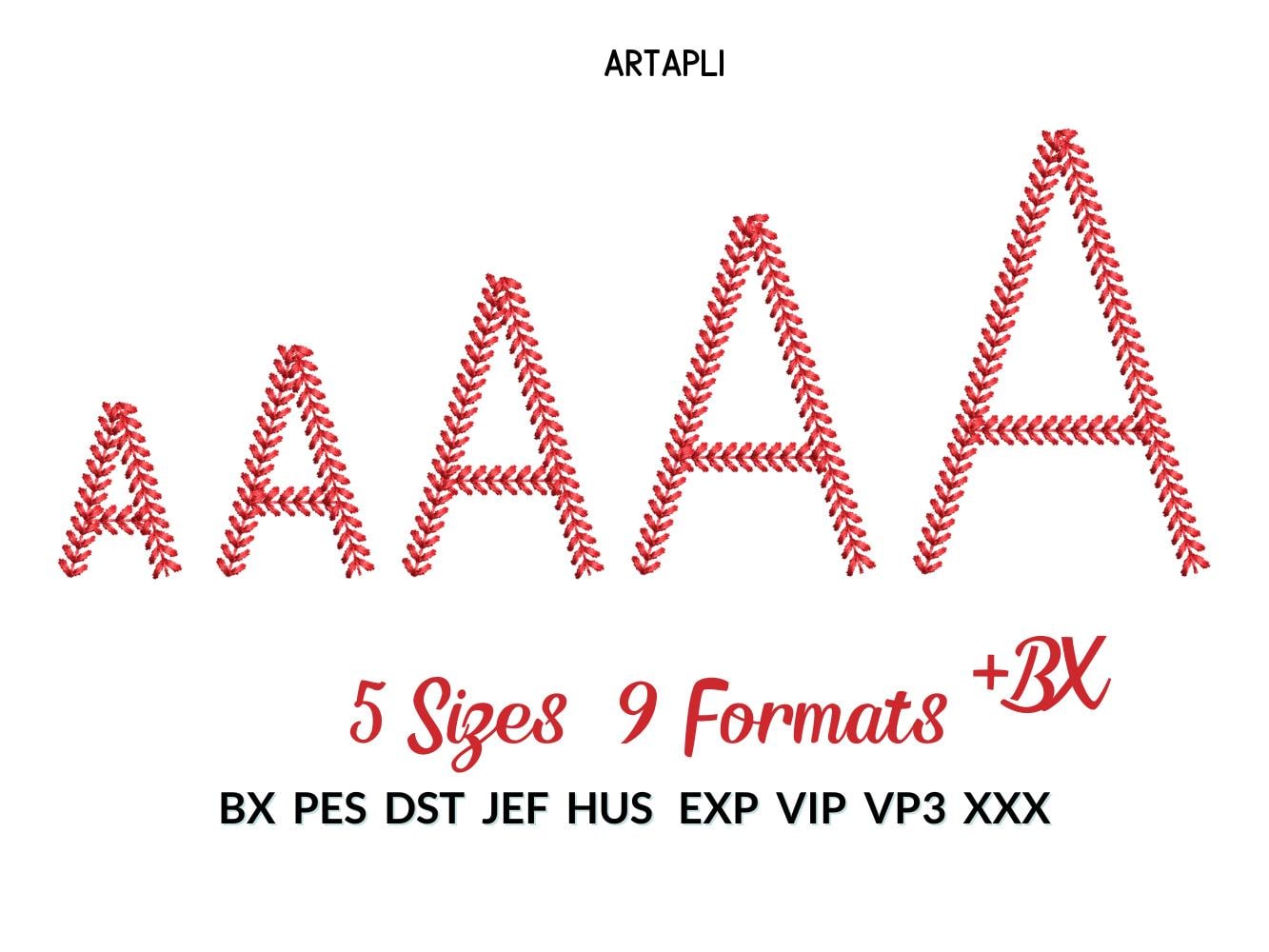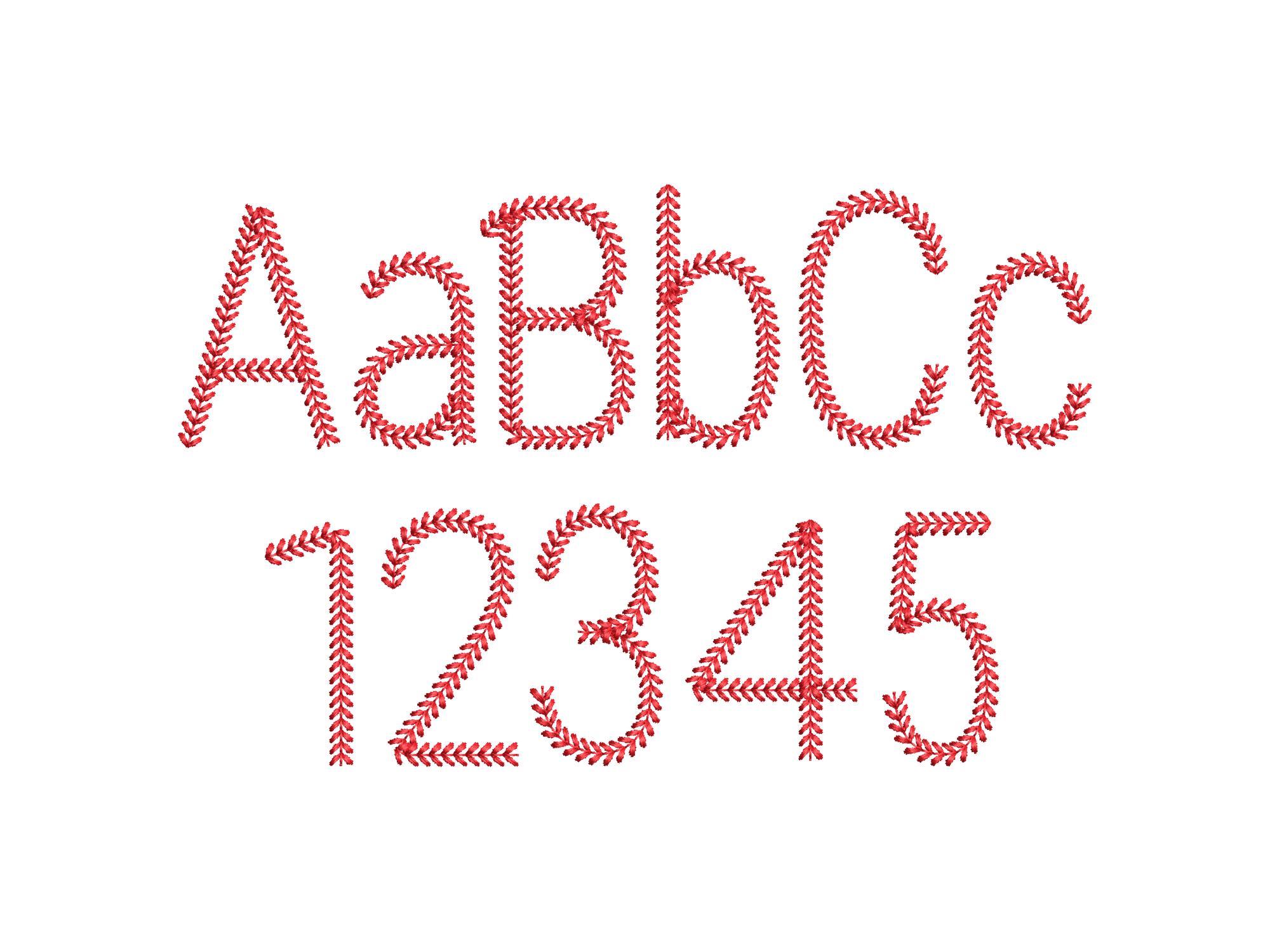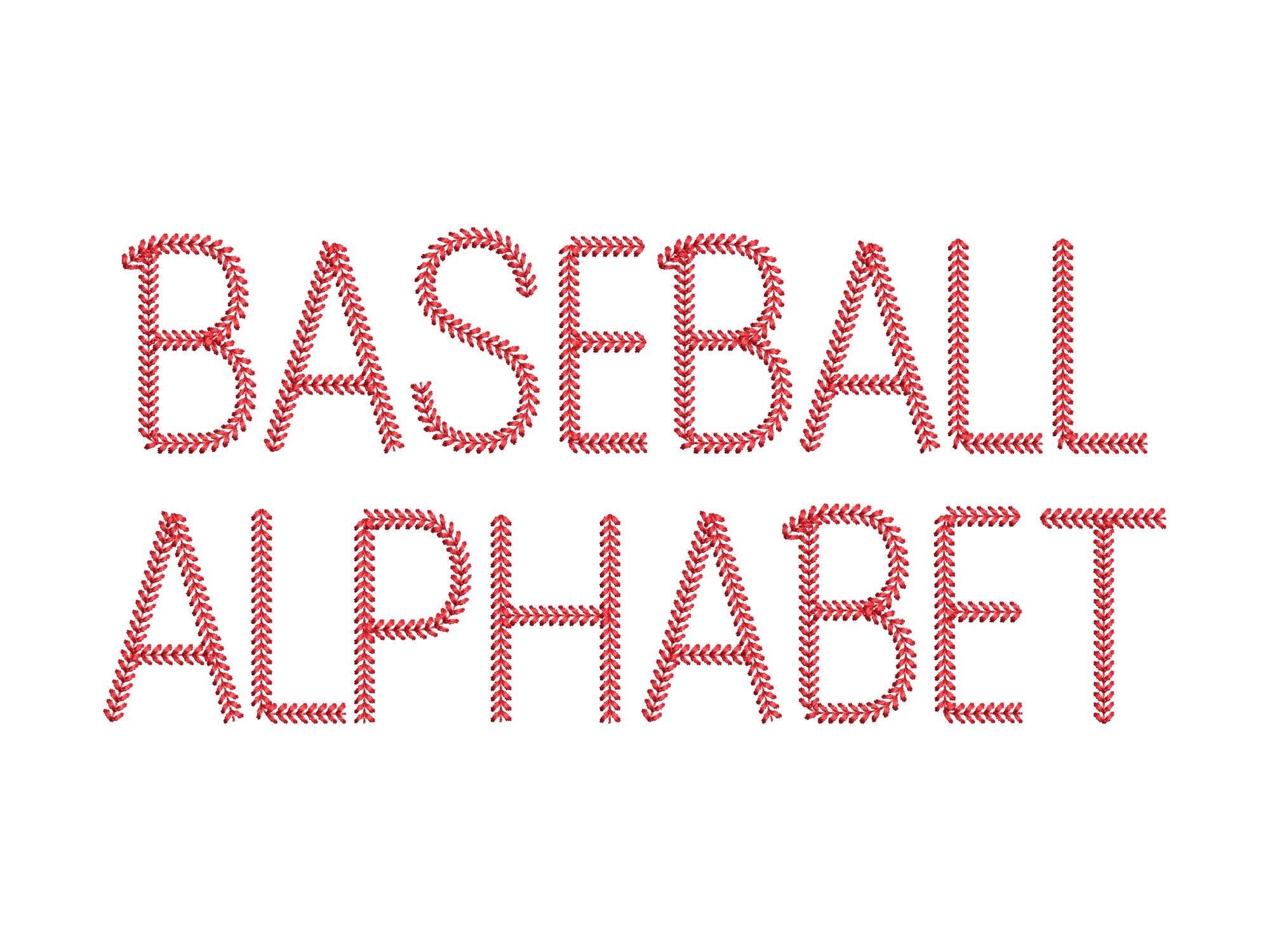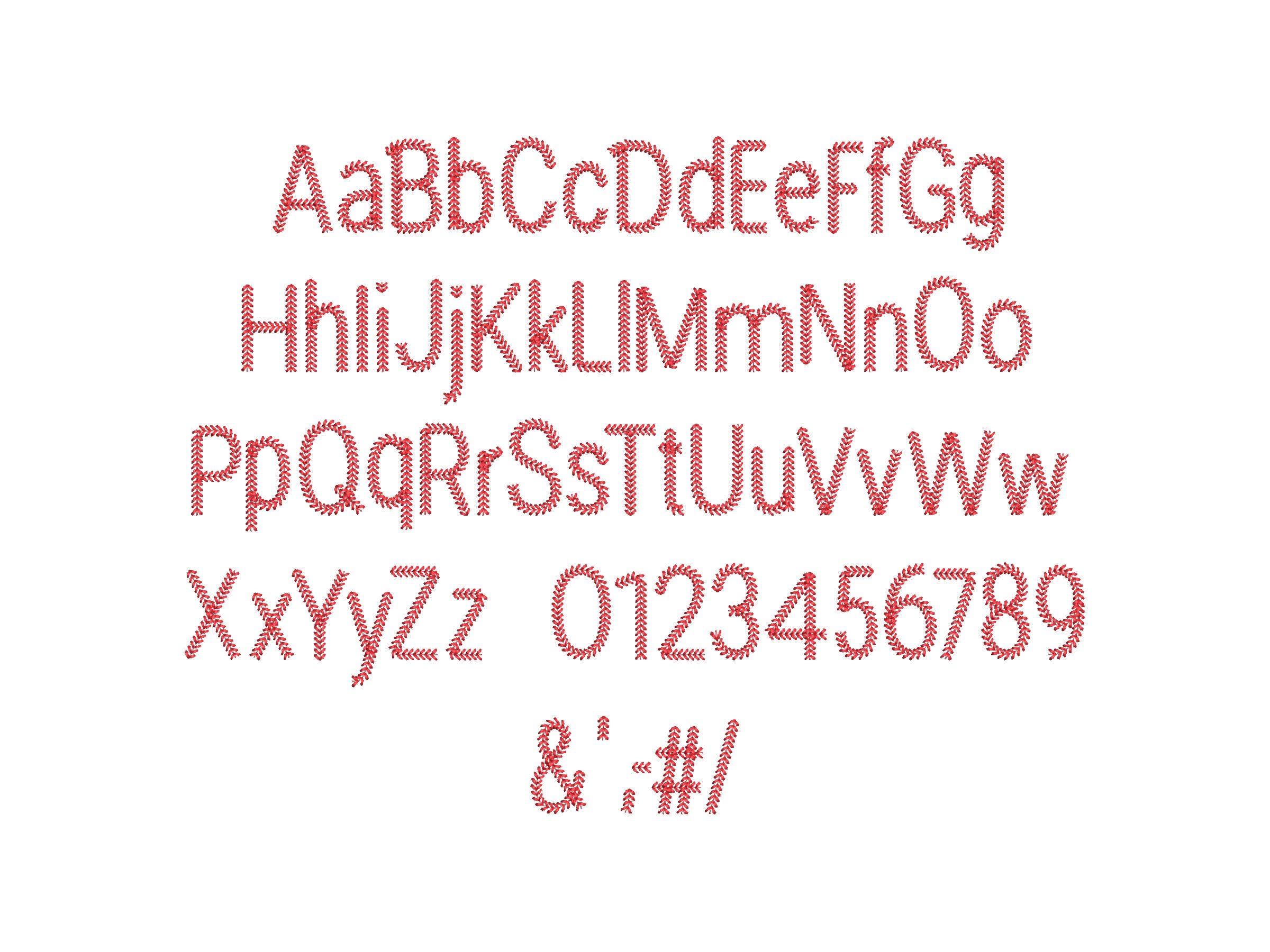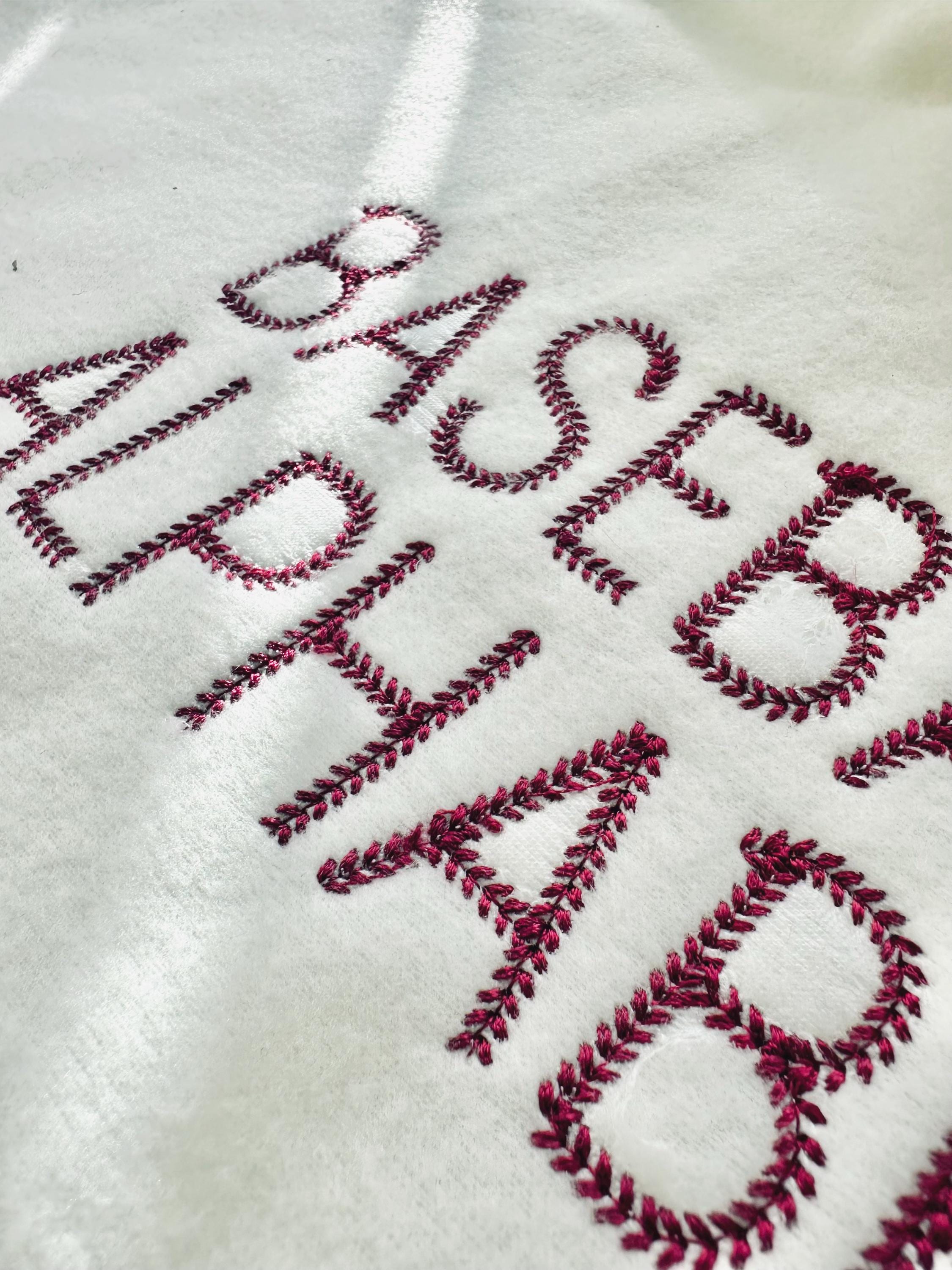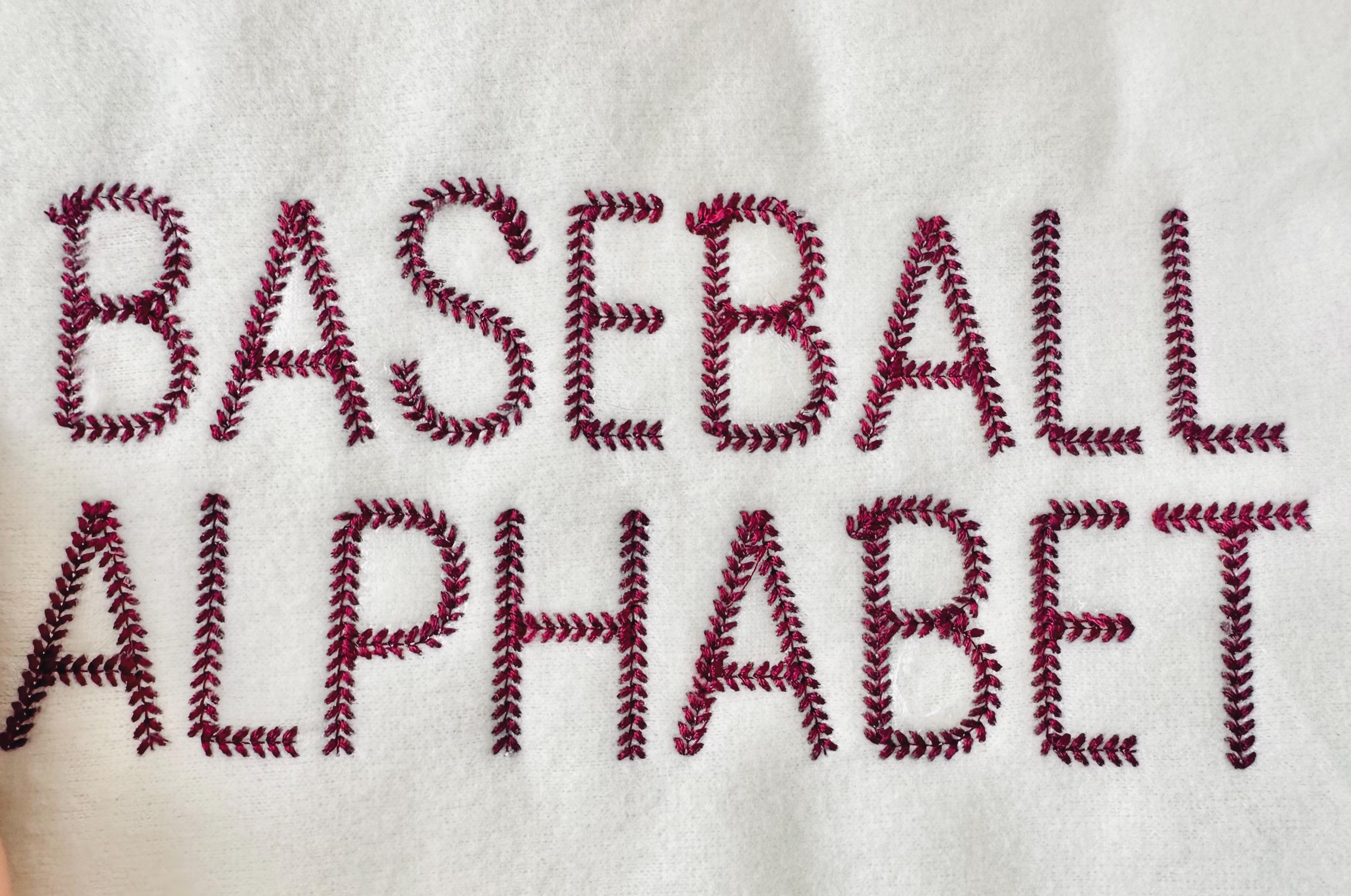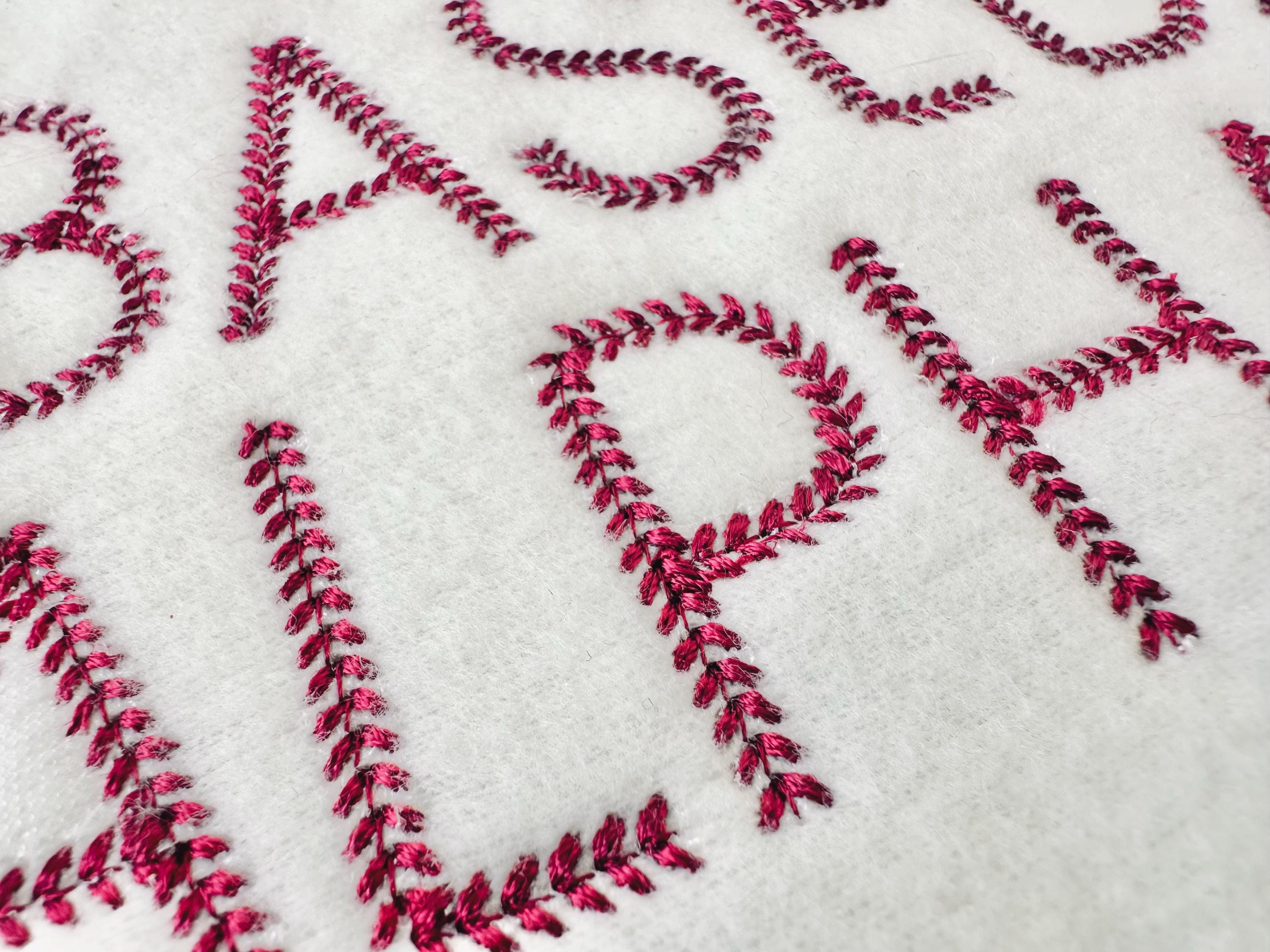
Baseball Stitch Block FONT - This is a unique stitch type that imitates the iconic stitching found on a baseball. These awesome block-style sports varsity alphabet letters are an original design, created for fast and efficient stitching while still looking amazing. These machine embroidery designs come in multiple sizes, ranging from 1 up to 2.7 inches, making them perfect for adding a bold, sporty touch to your embroidery projects!